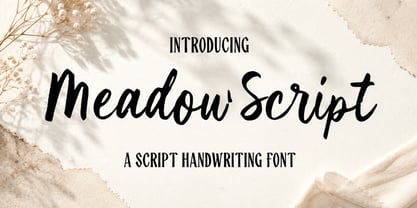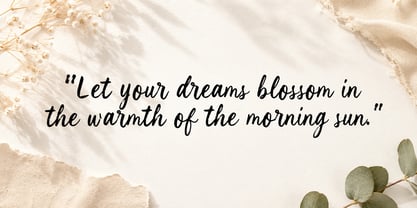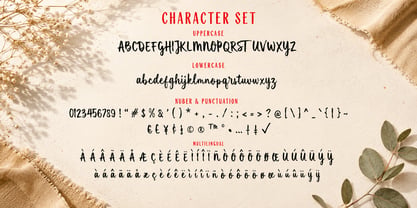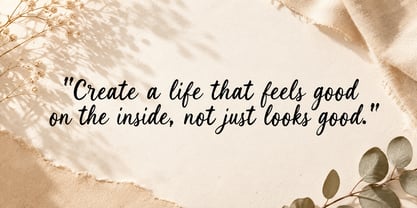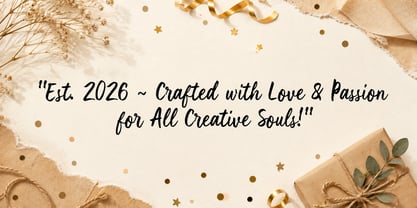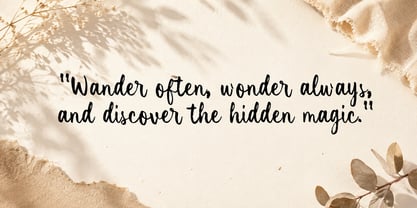
Meadow Script
by Letterytz CalliType
The Meadow Script Font Family was designed by Wahyu Eka Prasetya, Dian Angga Marytama and published by Letterytz CalliType. Meadow Script contains 2 styles. More about this family
MeadowScript – Handwritten Script Font
MeadowScript is a stylish handwritten script font with a natural, expressive, and authentic brush-lettering feel. Its flowing strokes and playful character make it perfect for branding, logos, packaging, apparel, posters, invitations, social media designs, and creative projects.
Features
• Uppercase & lowercase
• Numbers & punctuation
• Multilingual support
• Regular & Slant styles
• Natural handwritten script appearance
Designers: Wahyu Eka Prasetya, Dian Angga Marytama
Foundry: Letterytz CalliType